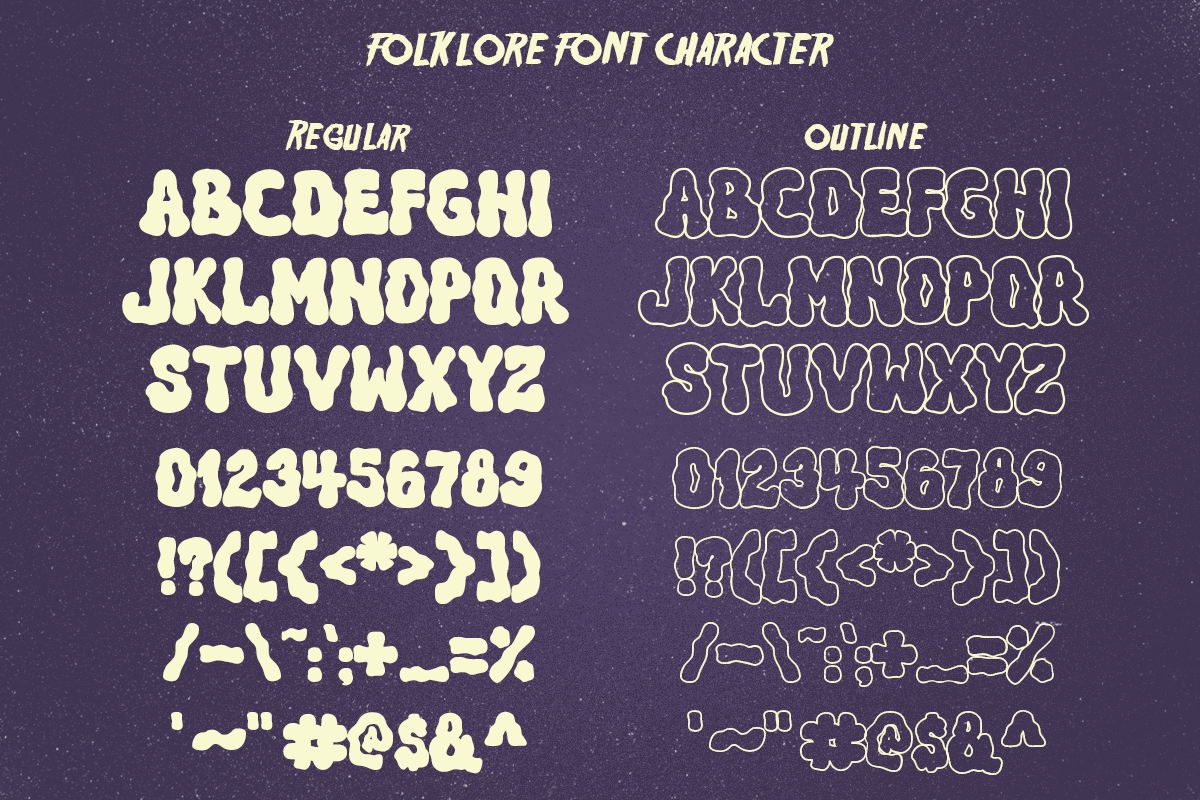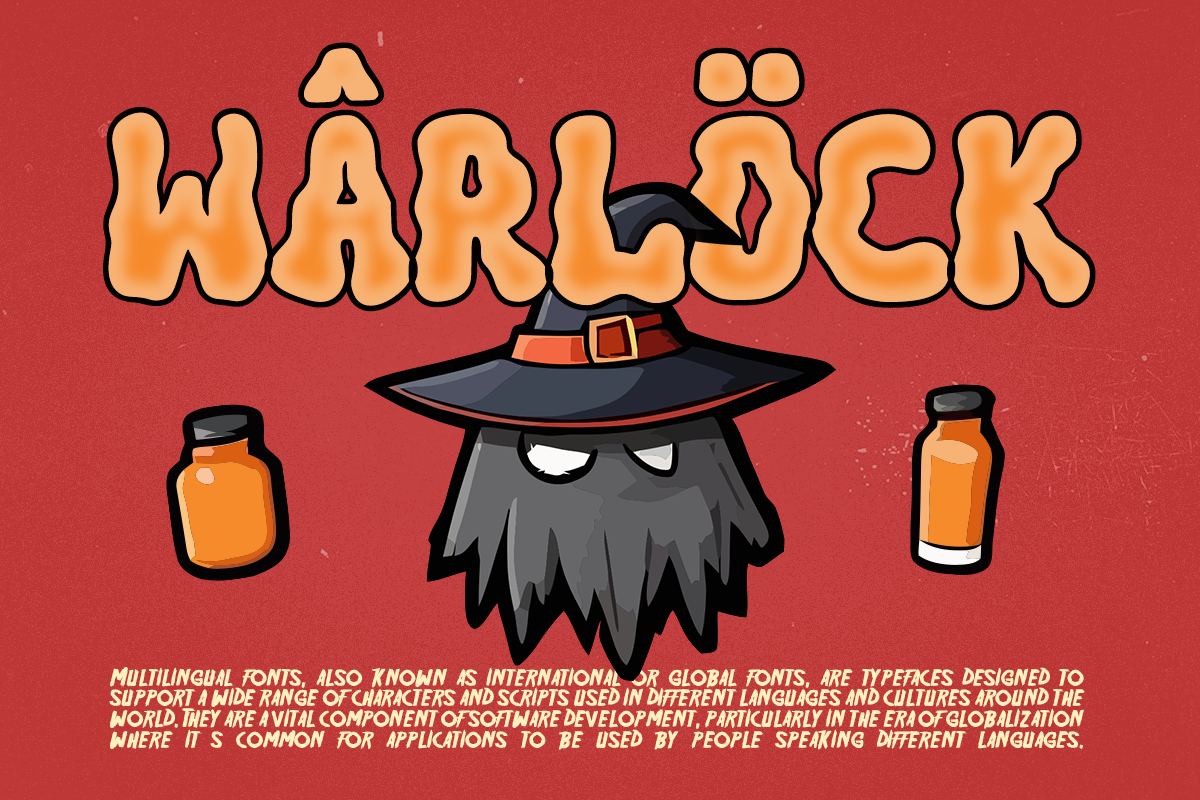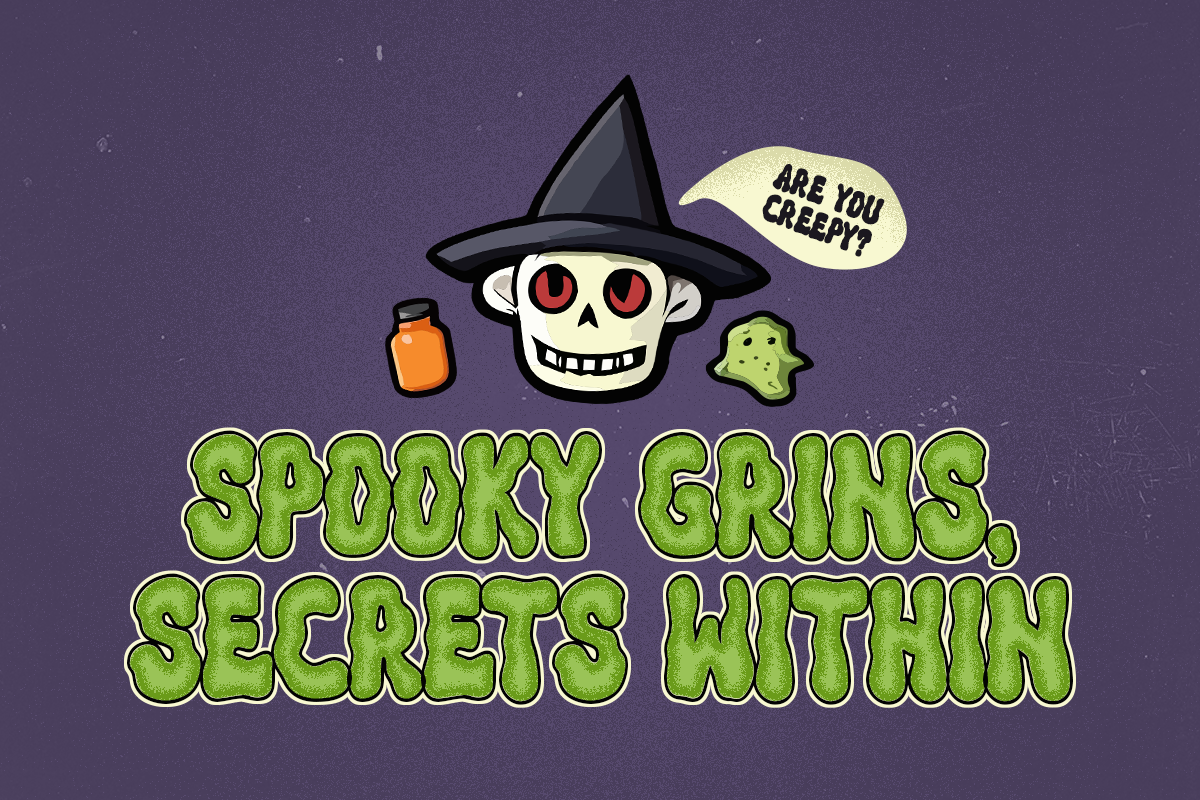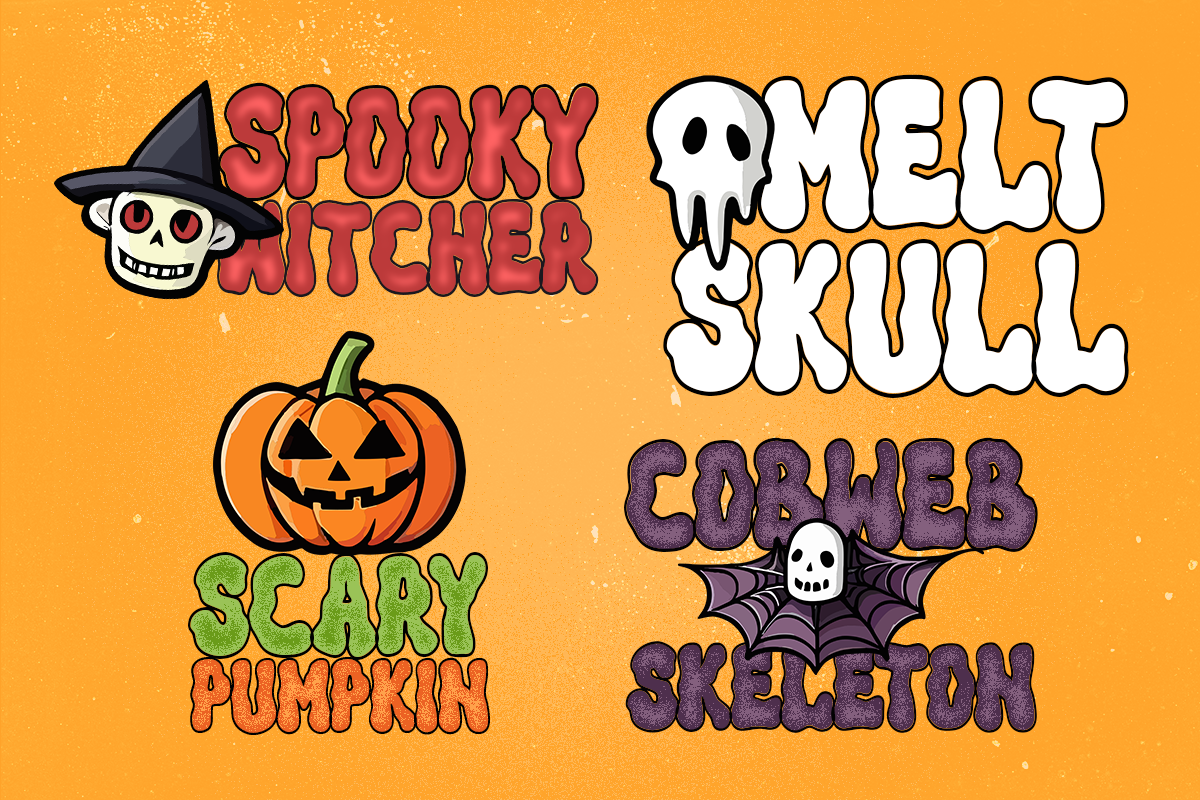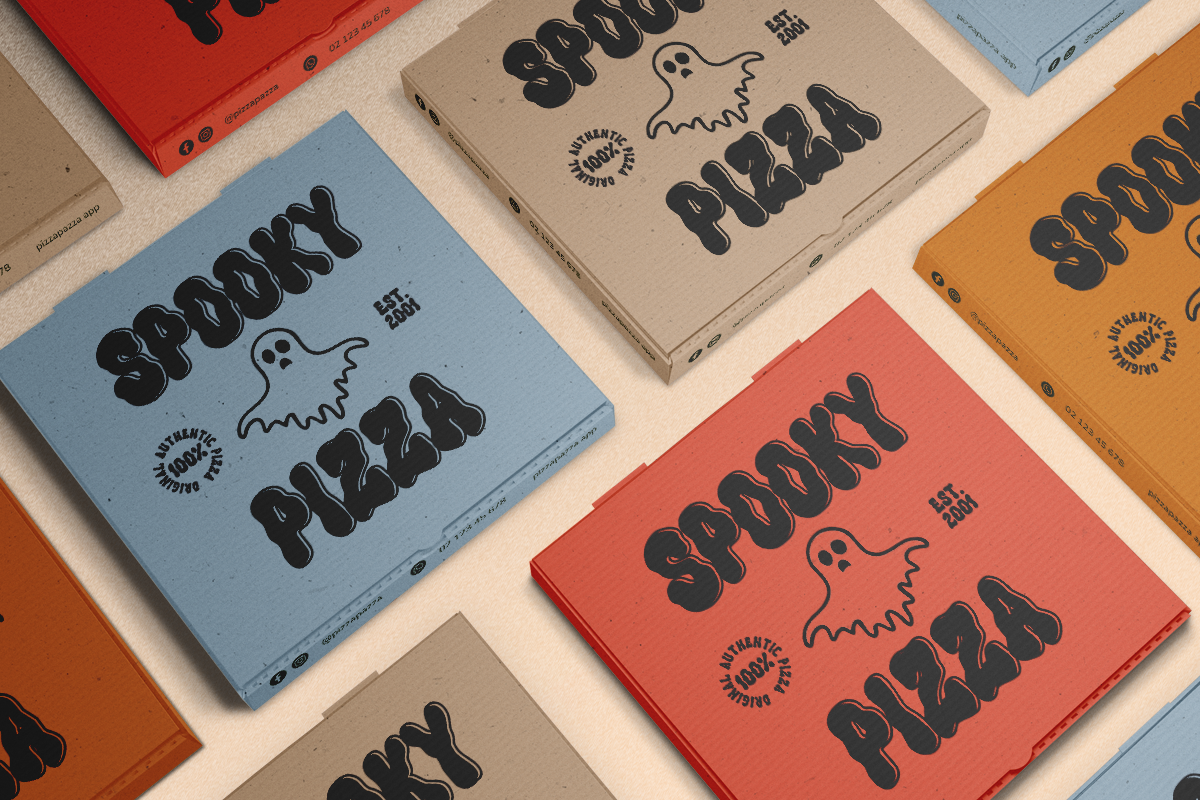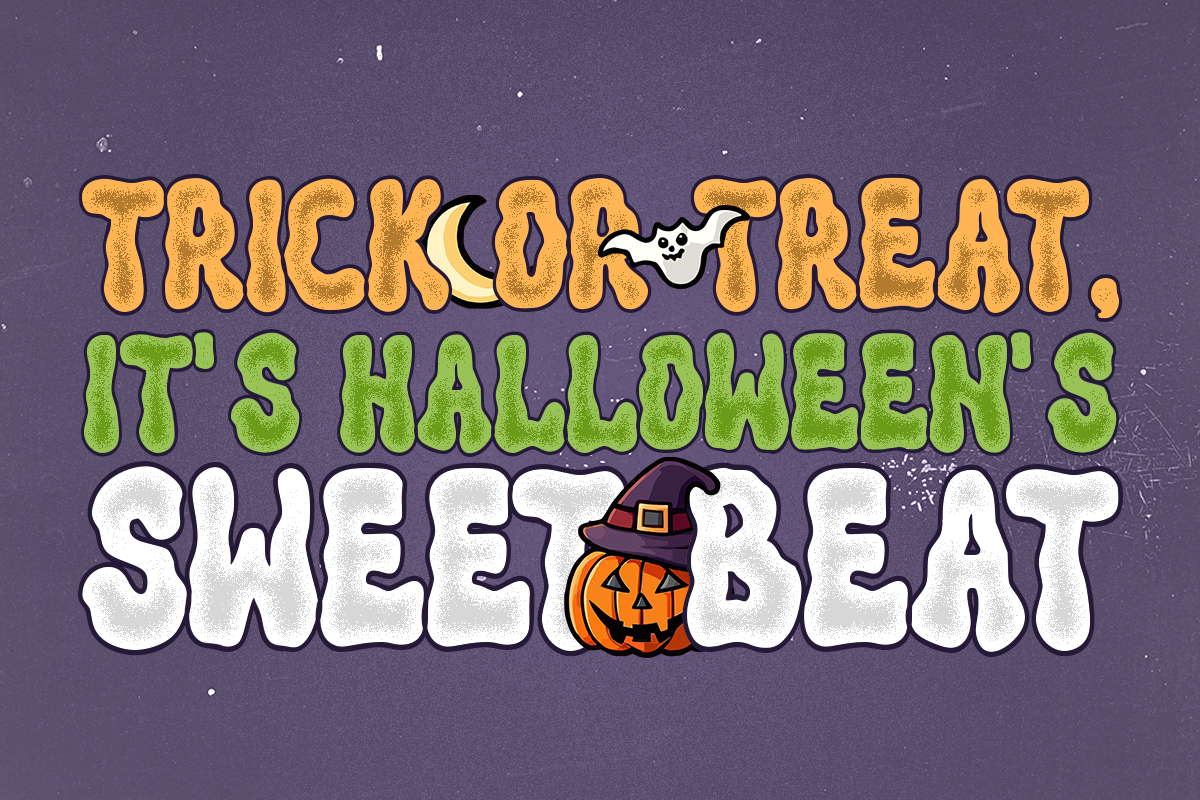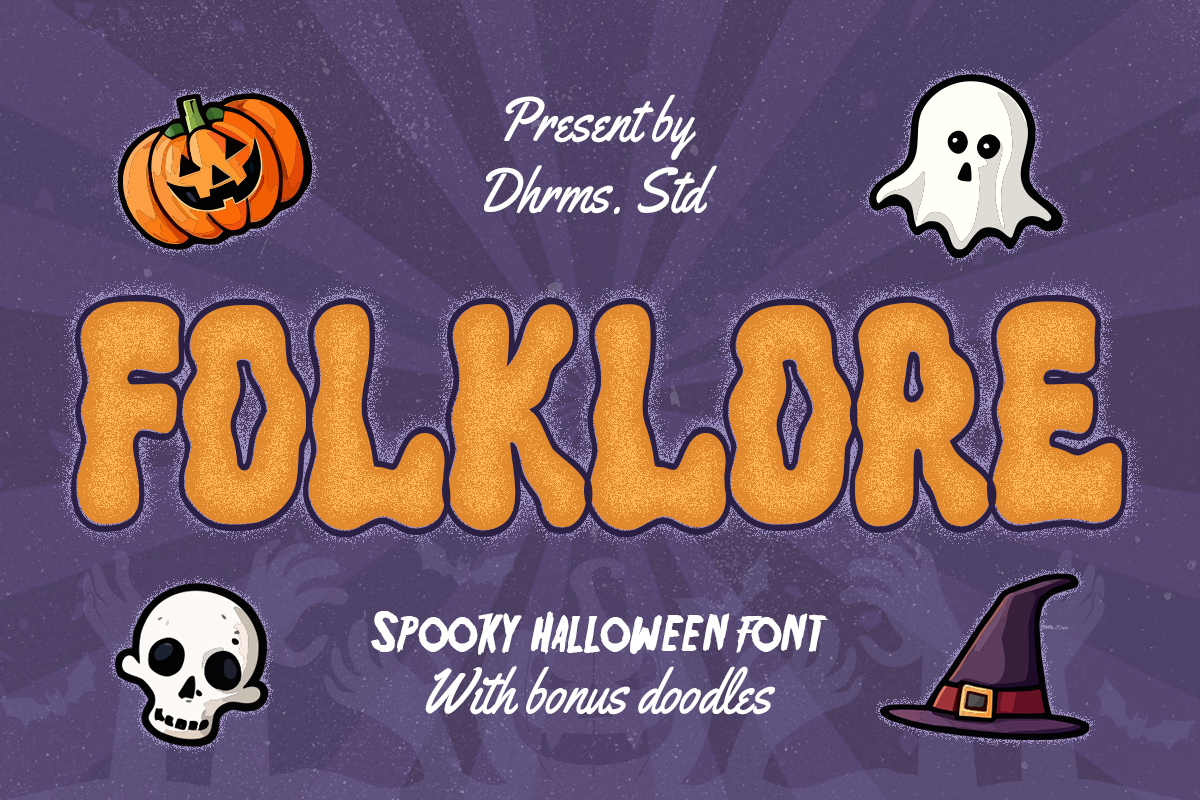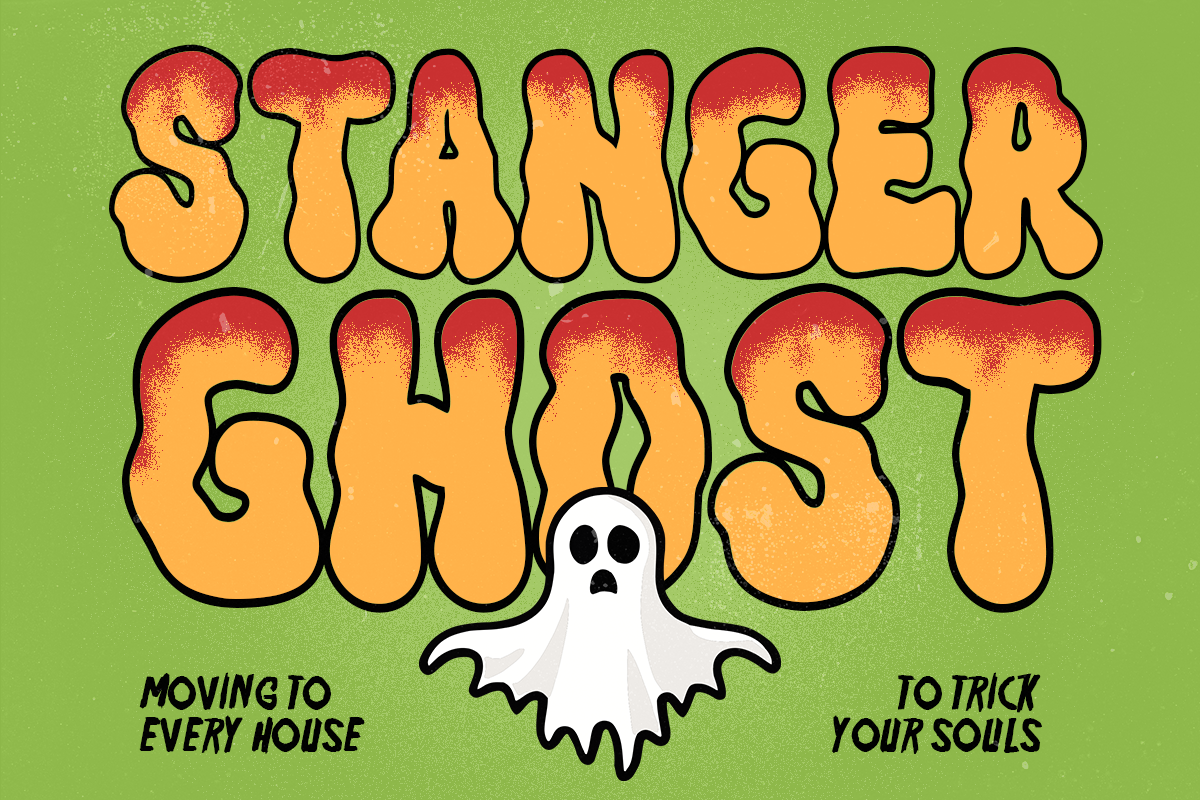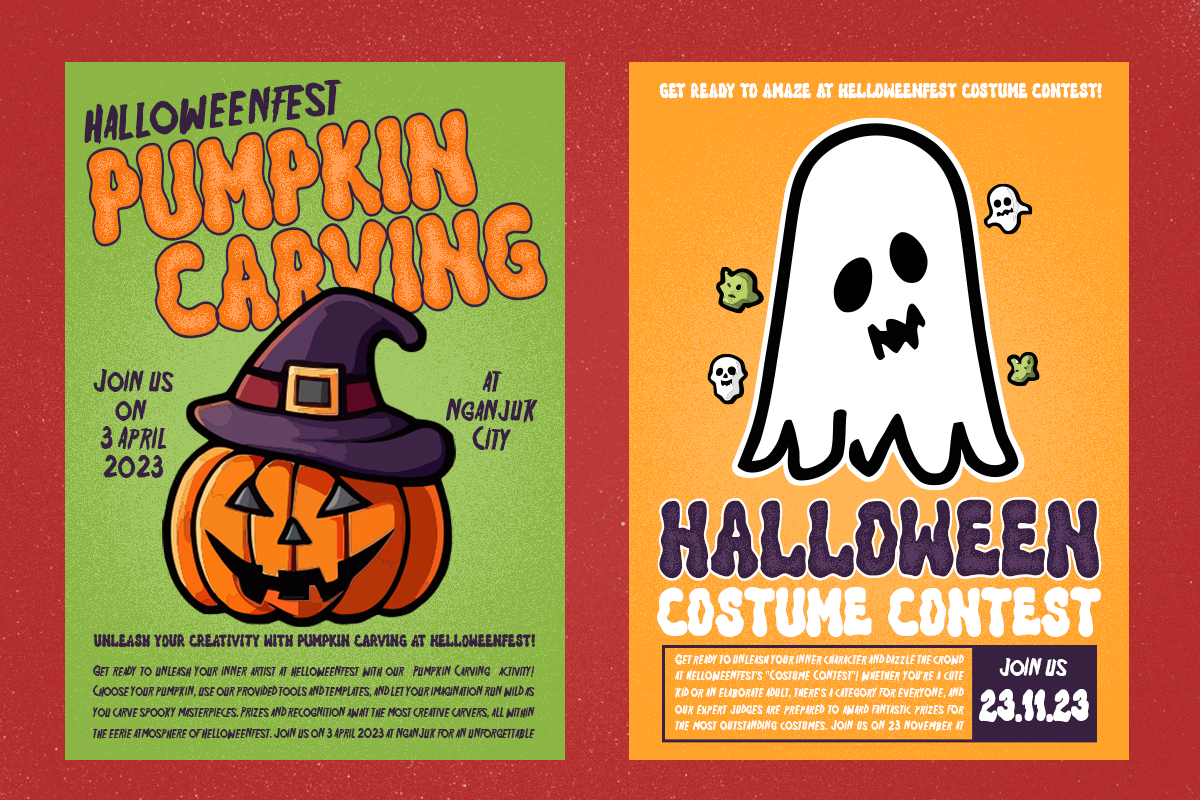
Folklore - Spooky Halloween Font
Say hello to Folklore! A font that's all about spooky, ghoulish fun! With its charming all caps style and built-in speckly texture, Folklore brings a touch of whimsy to your creative projects. Plus, we've included an Outline version of the font as a little bonus.
But that's not all – to spark your creativity, we've thrown in the doodles used in these previews for free! 🎃👻
Regular and Outline version
50 free doodles with Halloween theme
Unique Letterforms